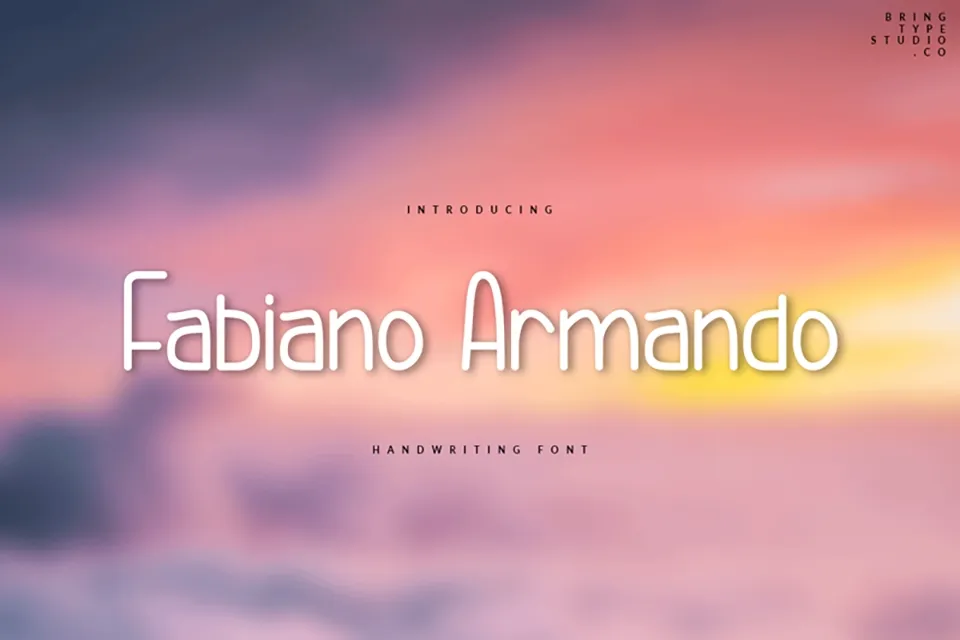
Fabiano Armando Font Family
Fabiano Armando Font is is a very unique and cute typeface with cute handwriting with a distinctive characteristic that is different from the others, this font is perfect for you to use in any case such as Funny moment, posters, promos, videos, pictures etc.